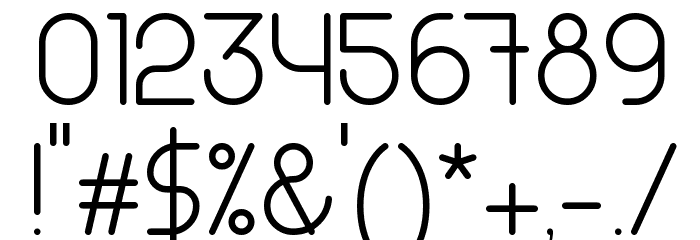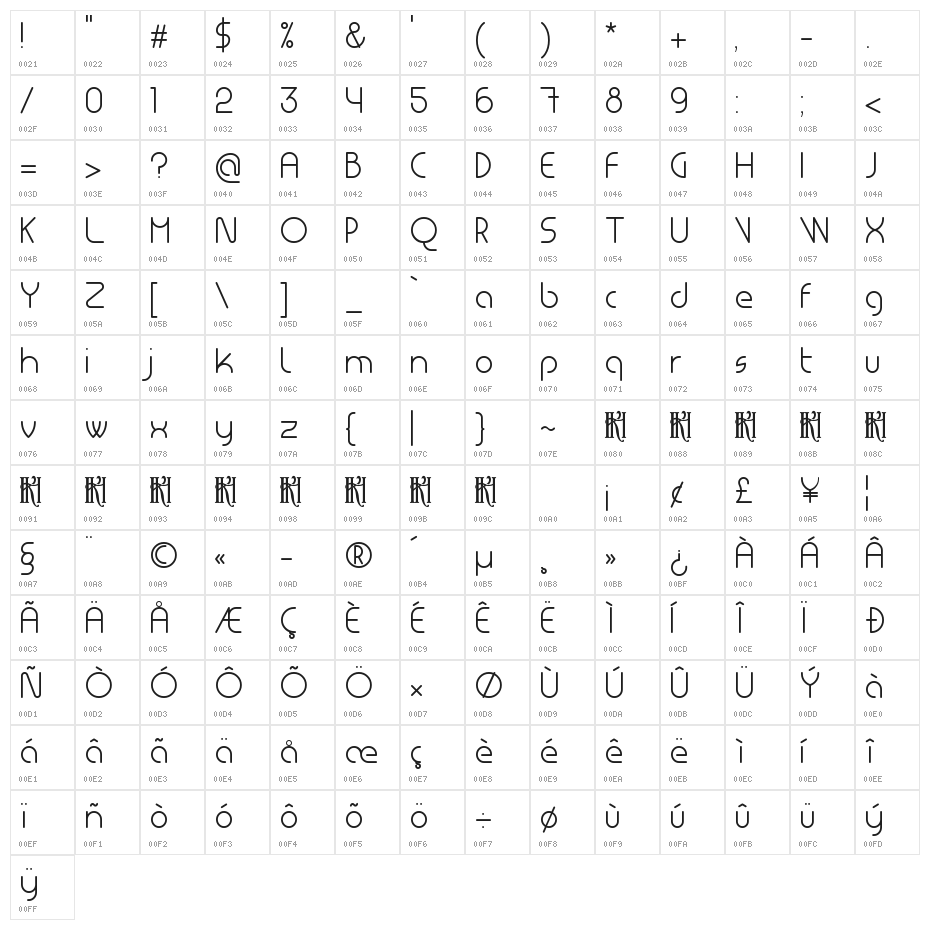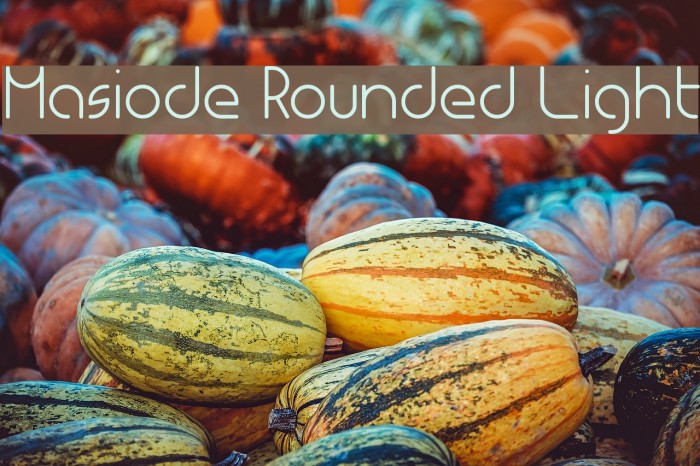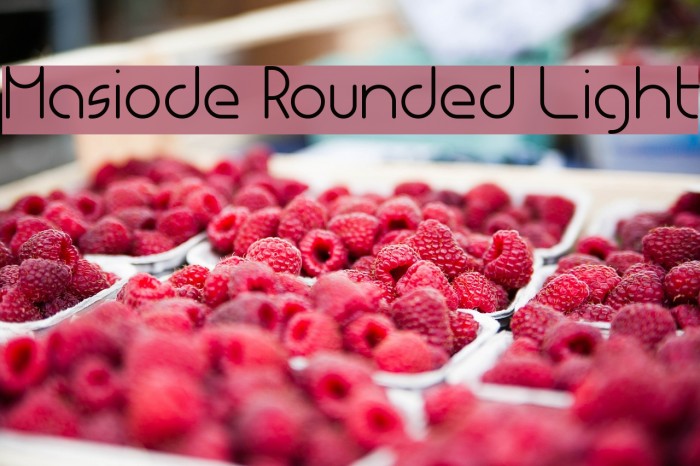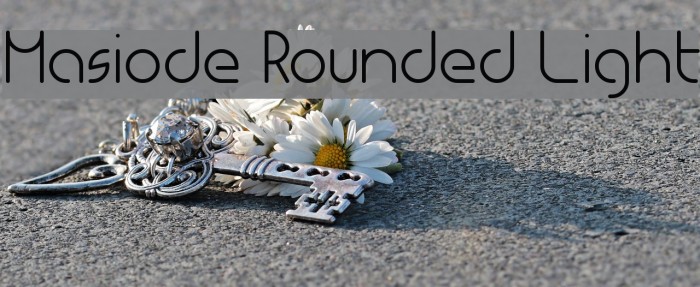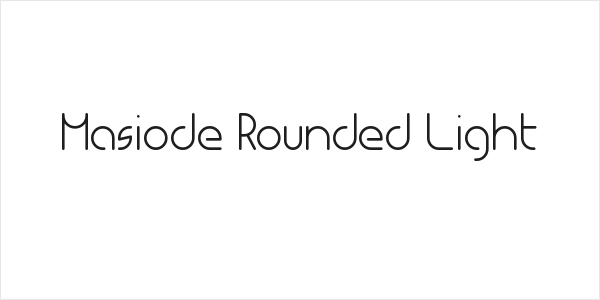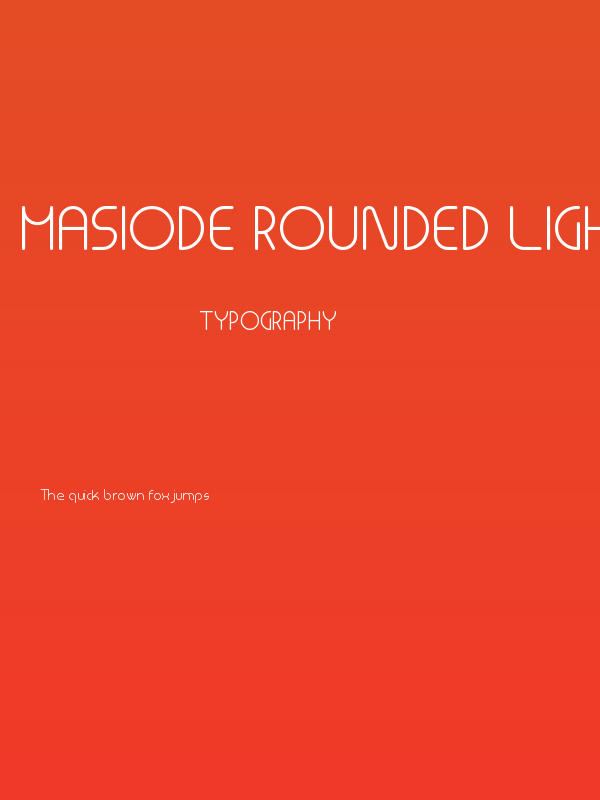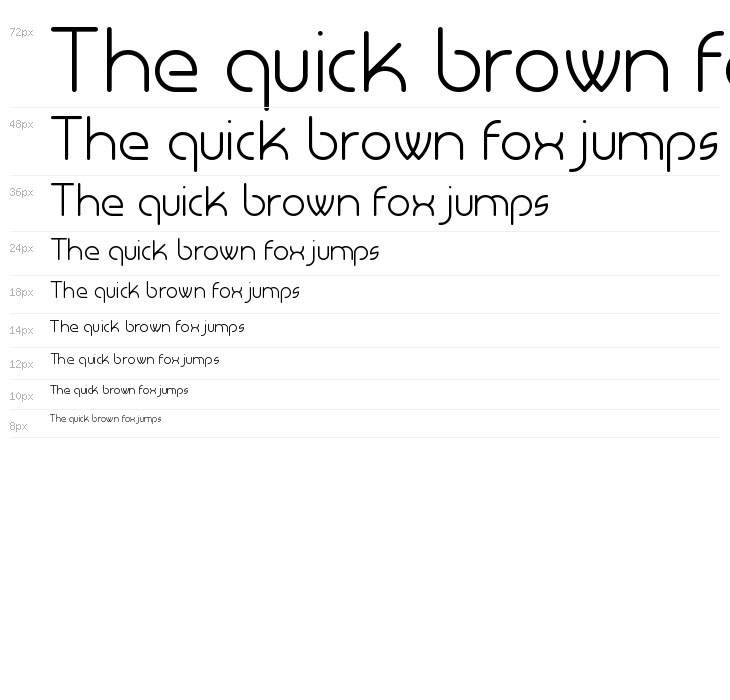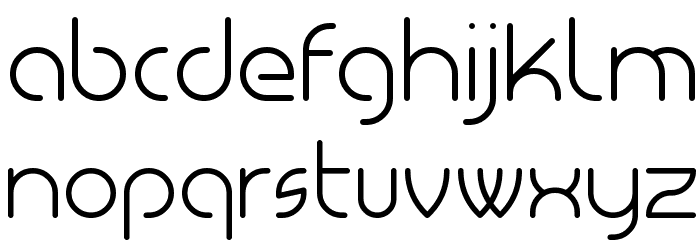
Masiode Rounded Light Font
Masiode Rounded Light Description
This font features a clean, modern aesthetic with rounded edges that give it a friendly and approachable feel. The characters are evenly spaced, contributing to its readability. The design is minimalistic, with a consistent stroke width that maintains a light and airy appearance. The rounded terminals soften the overall look, making it suitable for a variety of applications where a contemporary and inviting style is desired. Its geometric structure ensures clarity and precision, making it versatile for both digital and print media.
| Proposed Projects | Ideal for branding, user interfaces, signage, and children's books due to its friendly and clear appearance. |